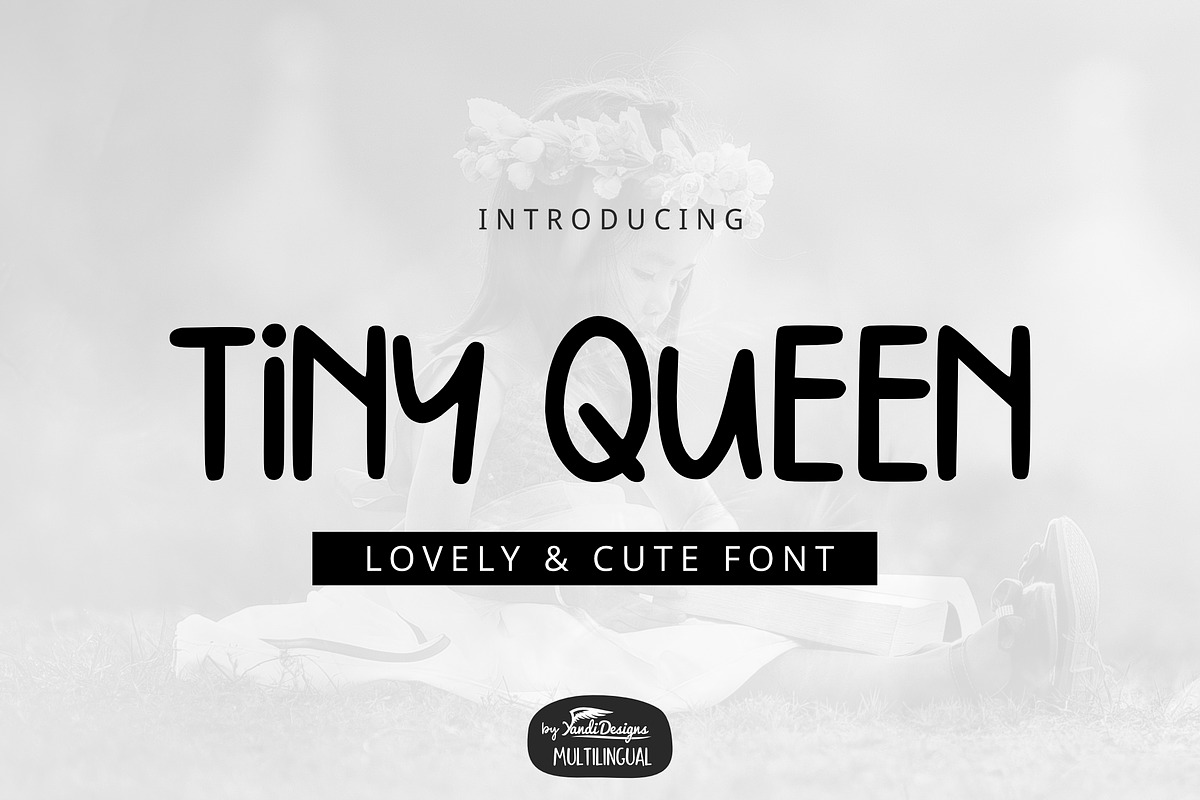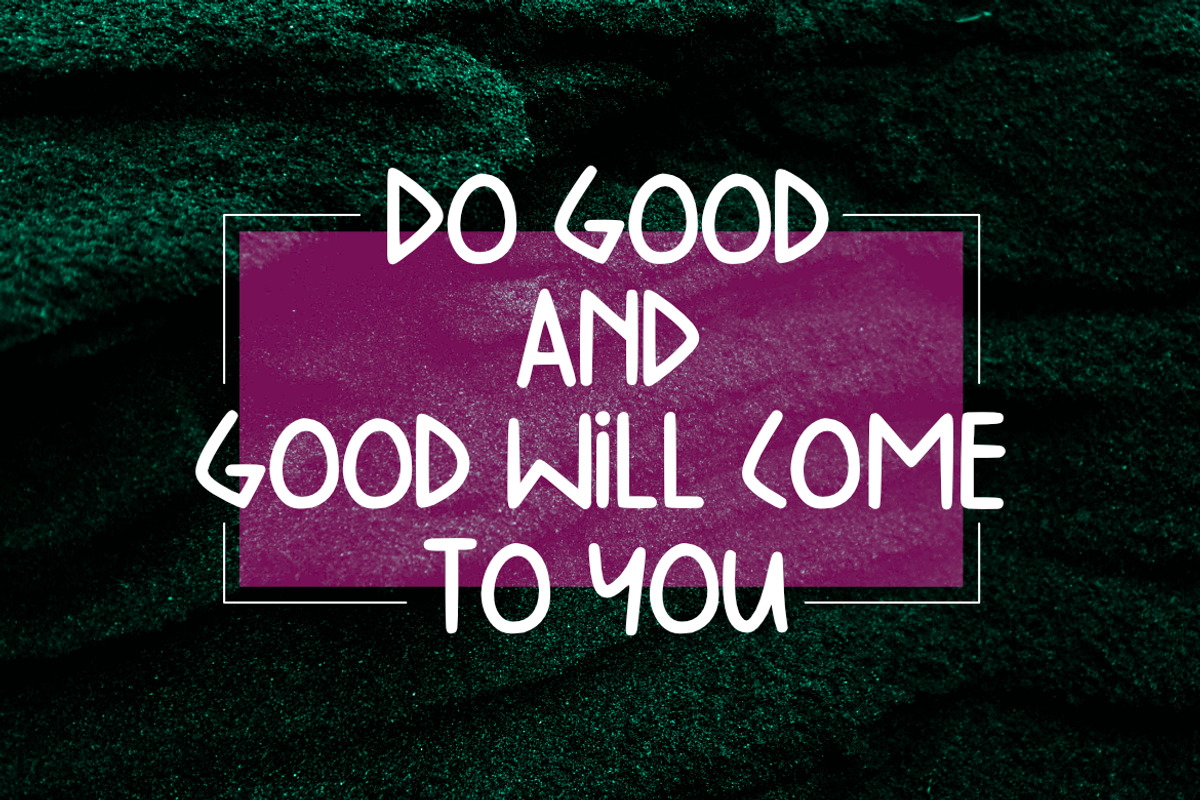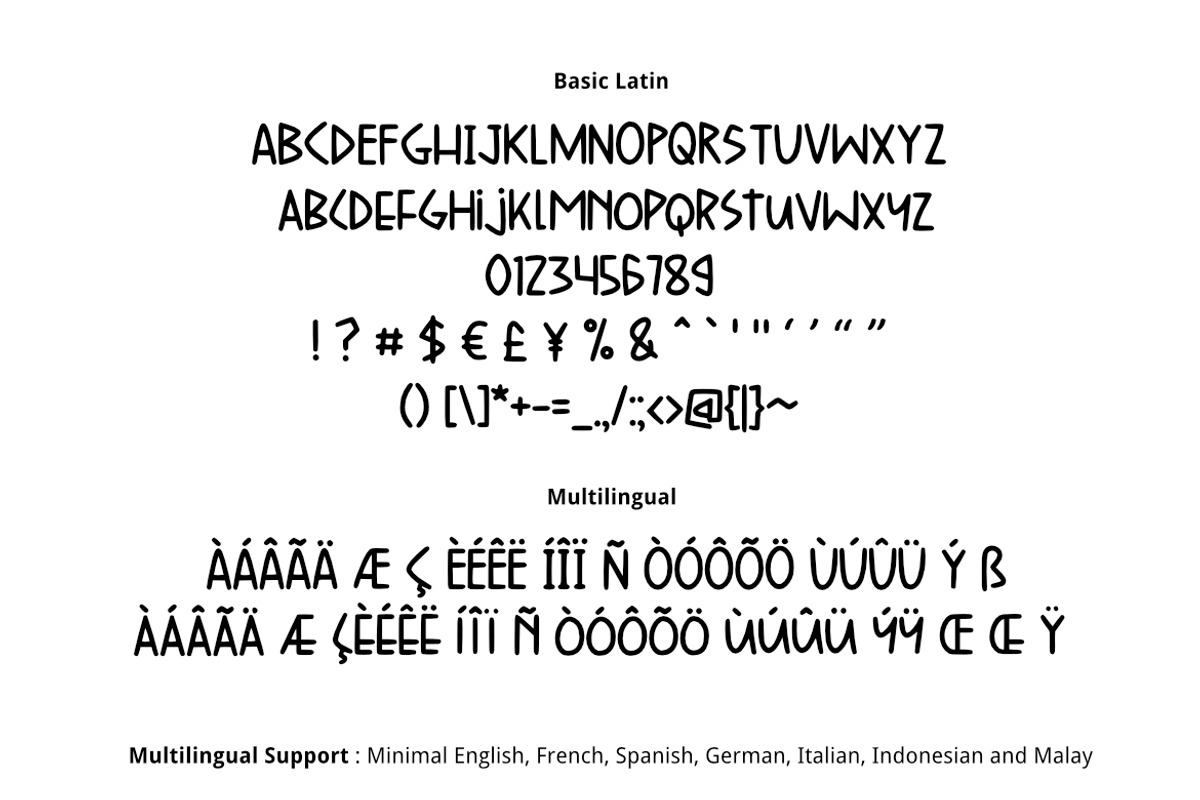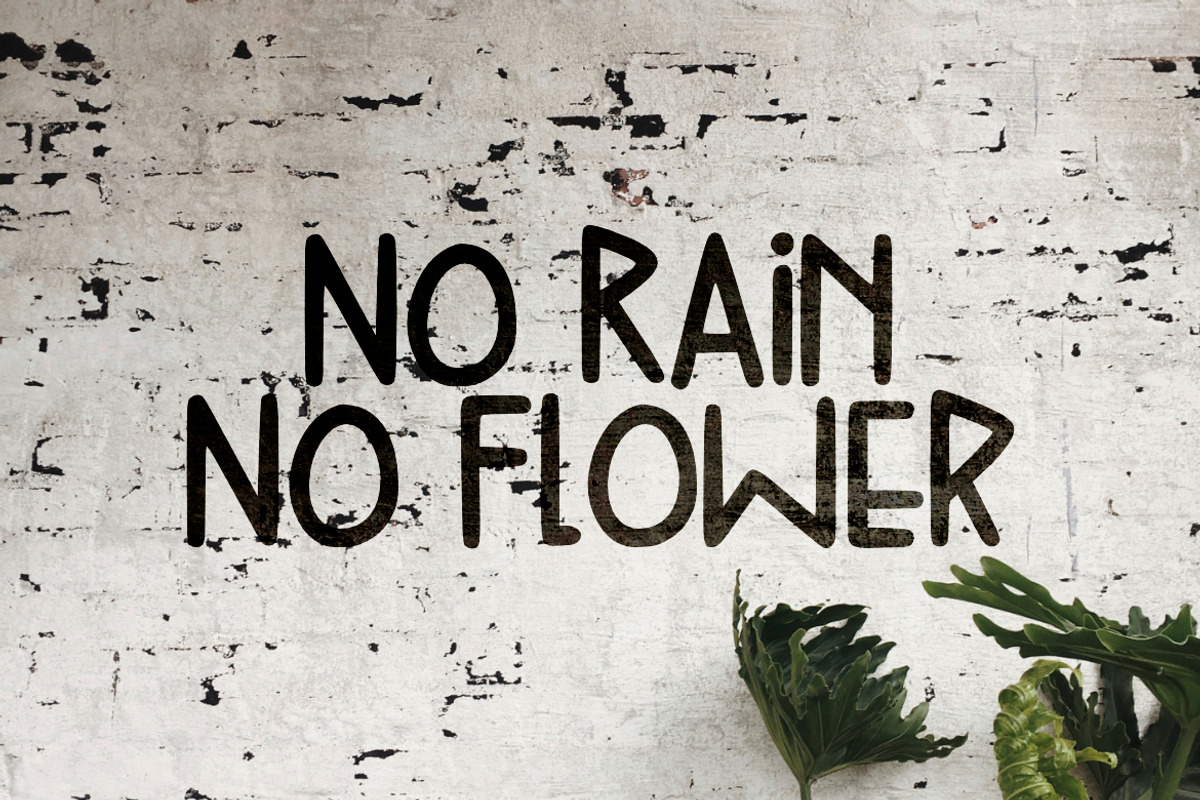
Tiny Queen Font
Tiny Queen Font is lovely cute multipurpose handmade font, suitable for many project children book, quotes, logo , heading , title etc.
Tiny Queen Font by YandiDesigns fits naturally into Branding, posters, packaging, typography.